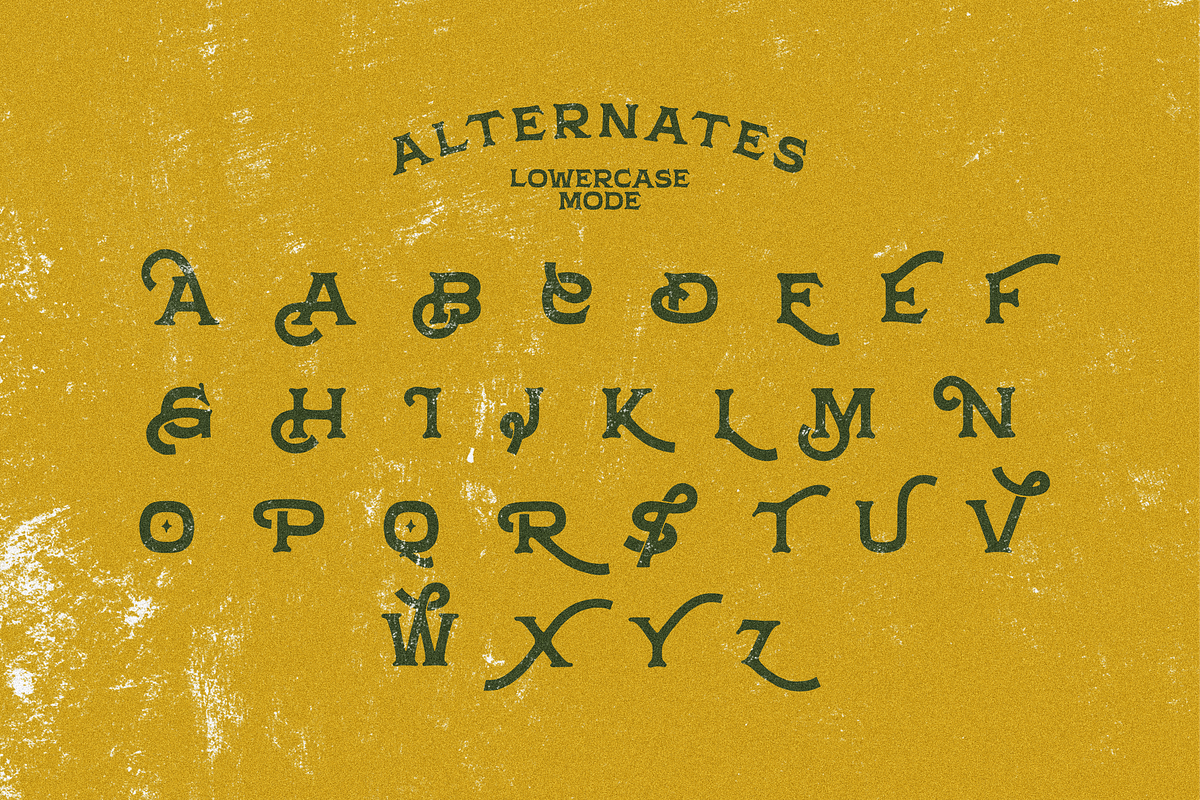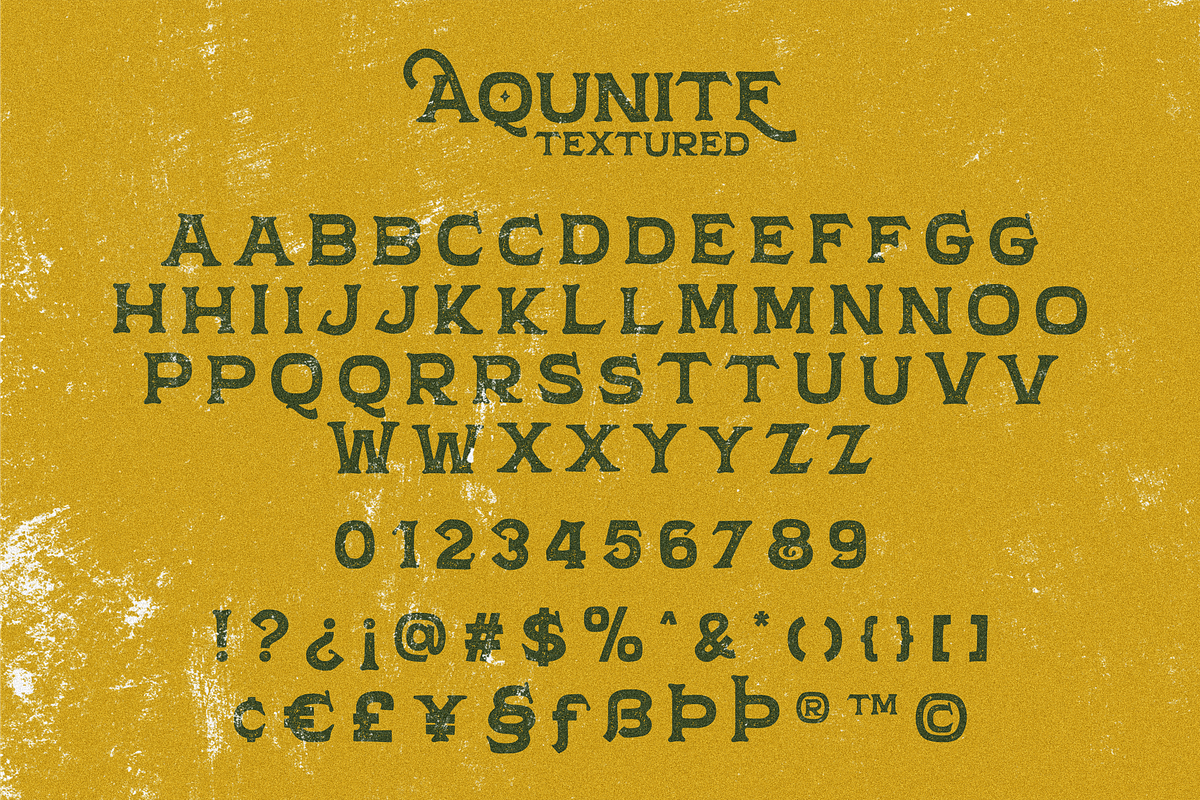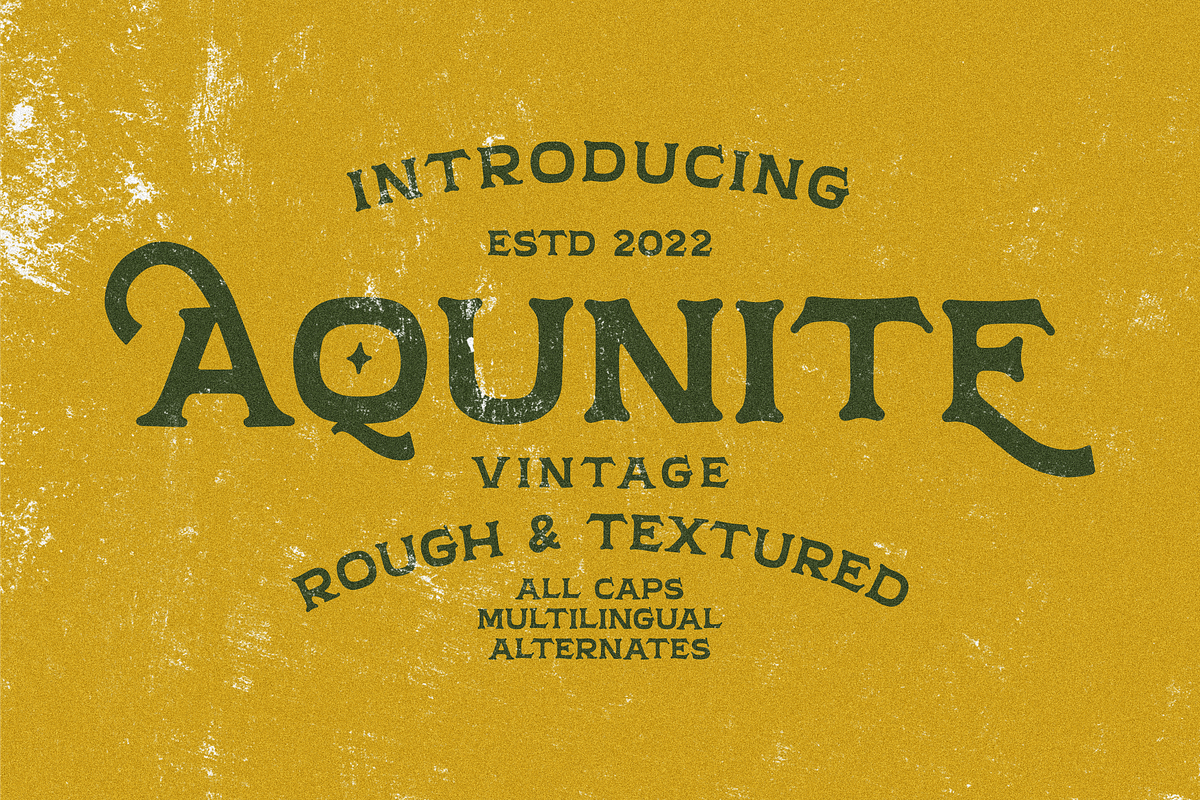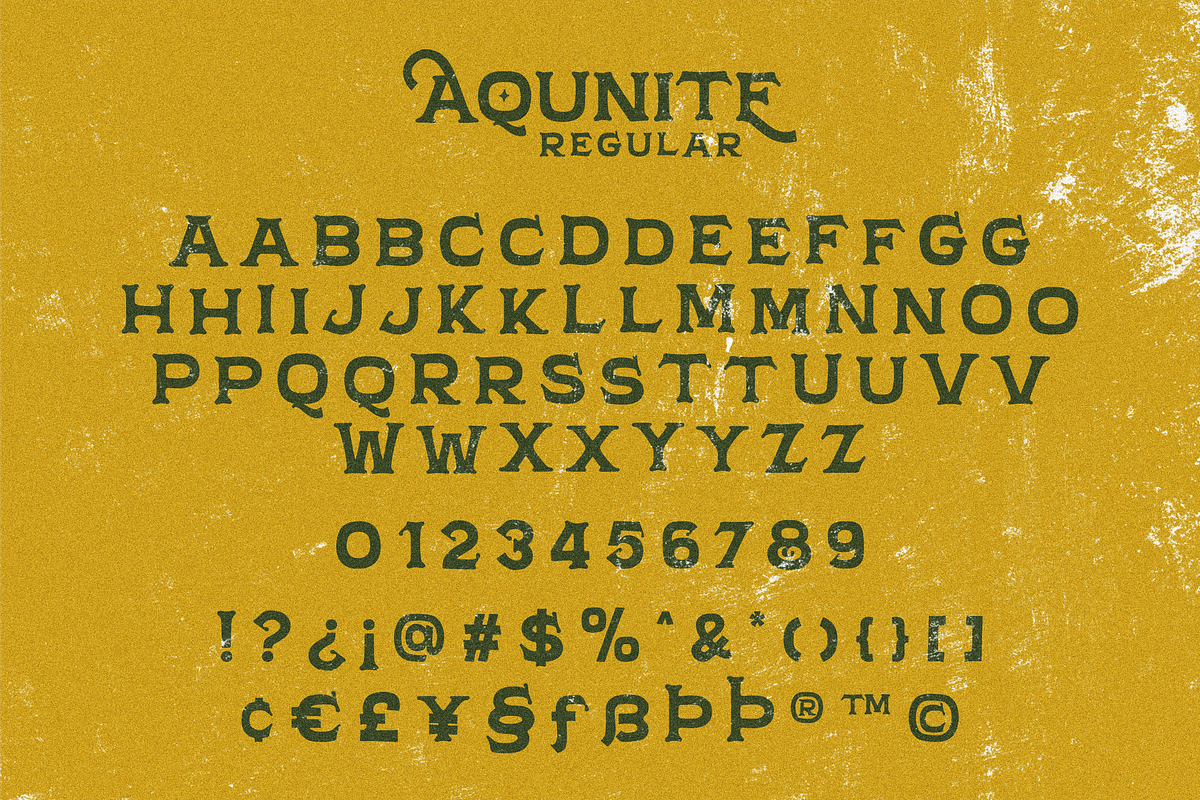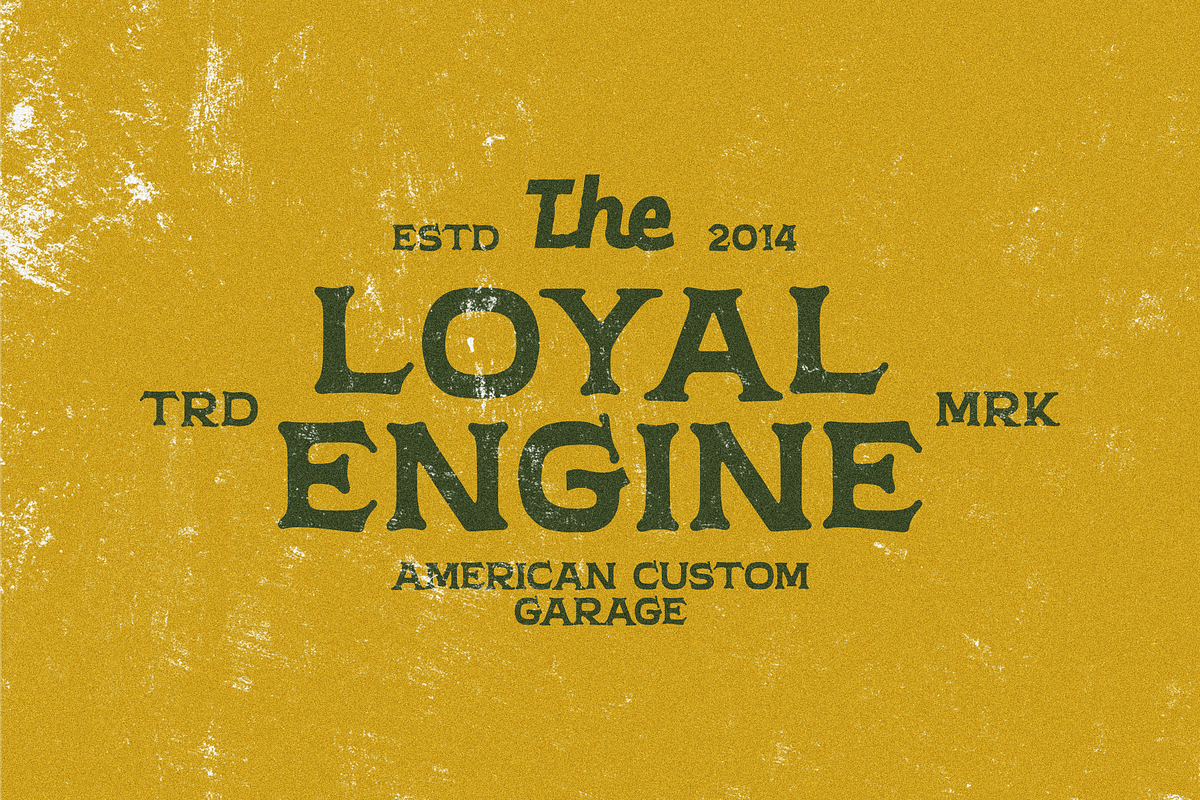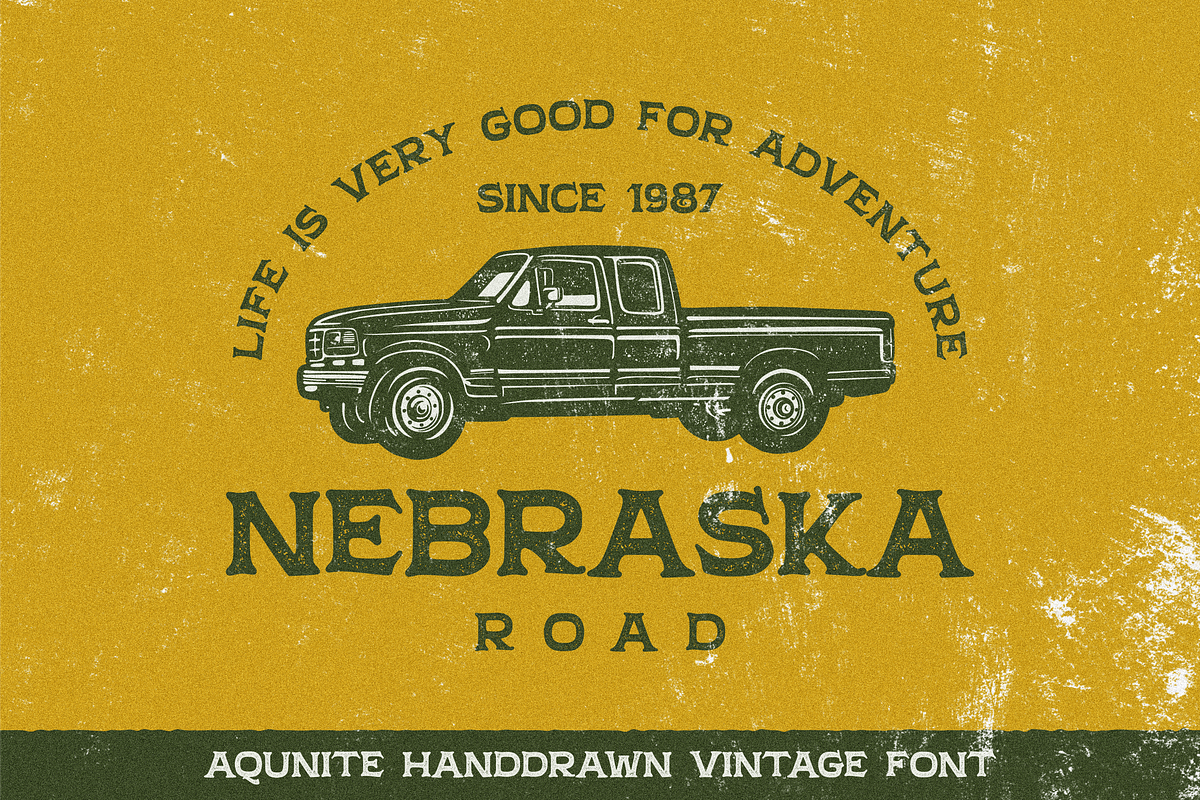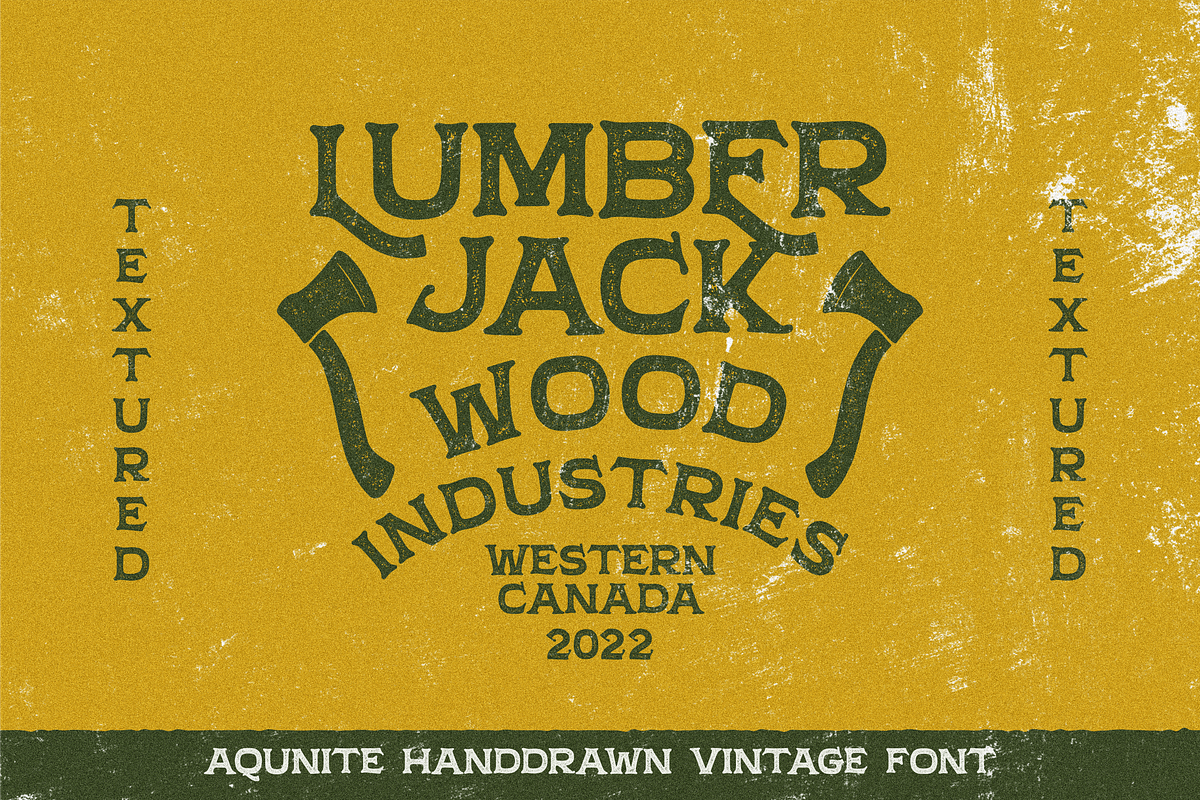
Aqunite Vintage Typeface
Aqunite is handdrawn vintage typeface, great for classic and vintage designs, such as for babershop designs, cafes, fashion shops, and others. This typeface has a natural feel to the touch of a human hand because it still has a rough texture, and alternate styles are available for each keystroke, but only in lowercase mode. This font is available in two styles, regular/clean and textured.
Feature:
- 2 Styles (Clean and textured)
- Numeral and punctuation